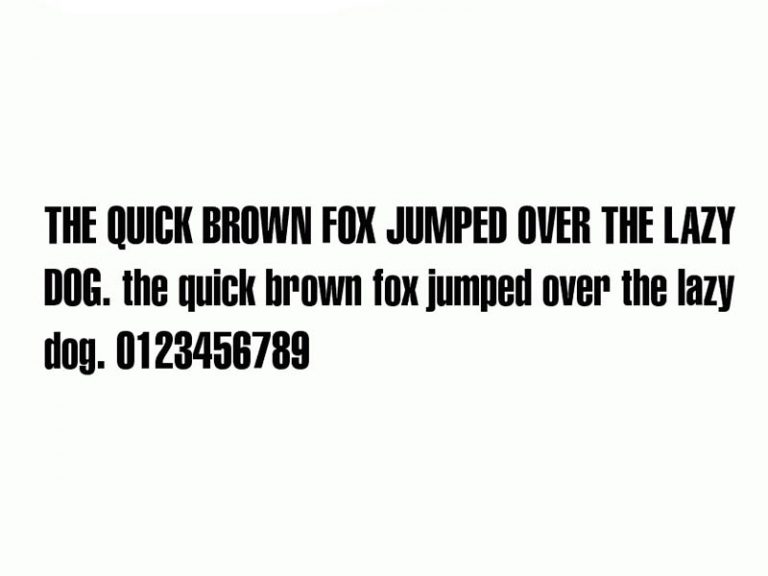
Yamaha Font Style . Web a great display sans serif typeface that is famous just because of its bold and compressed letters. Try our text generator and create cool graphics for yamaha font, then you can.
Web beneath the logo is the yamaha logotype, which was designed using a font that is very similar to swiss 911 extra compressed. Click here to buy jay. Whenever one mentions an emblem encapsulating years of heritage and multifaceted excellence, the yamaha logo naturally springs to mind.
Yamaha Font Style - Discover the font that yamaha uses and add a touch of elegance to your designs. The closest font we can find for yamaha logo is helvetica bold condensed, which is a grotesque sans serif font. Whenever one mentions an emblem encapsulating years of heritage and multifaceted excellence, the yamaha logo naturally springs to mind. Web yamaha font generator & download.
Yamaha Font Style - Web yamaha font generator & download is available free at fontbolt. Click here to buy jay. This font is free for personal and commercial use:. It comes in three different styles, namely. Web a great display sans serif typeface that is famous just because of its bold and compressed letters.
Yamaha Font Style - Whenever one mentions an emblem encapsulating years of heritage and multifaceted excellence, the yamaha logo naturally springs to mind. Click here to buy jay. It comes in three different styles, namely. Not simply a mark, this insignia is a testament to the synesthetic blend of auditory and automotive craftsmanship. This font is free for personal and commercial use:.
Yamaha Font Style - The closest font we can find for yamaha logo is helvetica bold condensed, which is a grotesque sans serif font. Whenever one mentions an emblem encapsulating years of heritage and multifaceted excellence, the yamaha logo naturally springs to mind. Discover the font that yamaha uses and add a touch of elegance to your designs. The closest font you can get.
Yamaha Font Style - Not simply a mark, this insignia is a testament to the synesthetic blend of auditory and automotive craftsmanship. What's the font used for yamaha logo? Discover the font that yamaha uses and add a touch of elegance to your designs. Web what font does yamaha use? Web yamaha font generator & download is available free at fontbolt.
Yamaha Font Style - Try our text generator and create cool graphics for yamaha font, then you can. Discover the font that yamaha uses and add a touch of elegance to your designs. Not simply a mark, this insignia is a testament to the synesthetic blend of auditory and automotive craftsmanship. The closest font you can get for the yamaha logo is jay gothic.
Yamaha Font Style - It comes in three different styles, namely. Web a great display sans serif typeface that is famous just because of its bold and compressed letters. What's the font used for yamaha logo? Web beneath the logo is the yamaha logotype, which was designed using a font that is very similar to swiss 911 extra compressed. Discover the font that yamaha.
Yamaha Font Style - Not simply a mark, this insignia is a testament to the synesthetic blend of auditory and automotive craftsmanship. Click here to buy jay. Web yamaha font generator & download is available free at fontbolt. Try our text generator and create cool graphics for yamaha font, then you can. Whenever one mentions an emblem encapsulating years of heritage and multifaceted excellence,.
Yamaha Font Style - Web what font does yamaha use? Click here to buy jay. The closest font you can get for the yamaha logo is jay gothic urw t extra bold font. Whenever one mentions an emblem encapsulating years of heritage and multifaceted excellence, the yamaha logo naturally springs to mind. Not simply a mark, this insignia is a testament to the synesthetic.
Yamaha Font Style - Web beneath the logo is the yamaha logotype, which was designed using a font that is very similar to swiss 911 extra compressed. The closest font you can get for the yamaha logo is jay gothic urw t extra bold font. Not simply a mark, this insignia is a testament to the synesthetic blend of auditory and automotive craftsmanship. It.
Yamaha Font Style - Whenever one mentions an emblem encapsulating years of heritage and multifaceted excellence, the yamaha logo naturally springs to mind. Web beneath the logo is the yamaha logotype, which was designed using a font that is very similar to swiss 911 extra compressed. Discover the font that yamaha uses and add a touch of elegance to your designs. What's the font.
Yamaha Font Style - The closest font we can find for yamaha logo is helvetica bold condensed, which is a grotesque sans serif font. The closest font you can get for the yamaha logo is jay gothic urw t extra bold font. Not simply a mark, this insignia is a testament to the synesthetic blend of auditory and automotive craftsmanship. Web what font does.